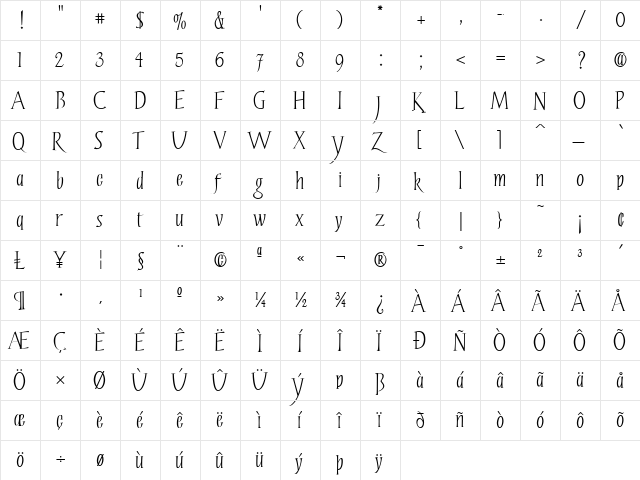
Garden Party Regular
| Foundry | TYPADELIC FONTS |
| Designer | Ronna Penner |
Design Context for Garden Party Typeface
Garden Party offers clean, dependable letterforms without strong stylistic allegiance, making it a practical choice for designers who need flexibility.